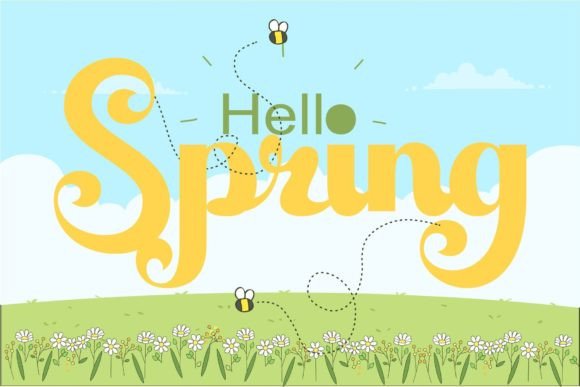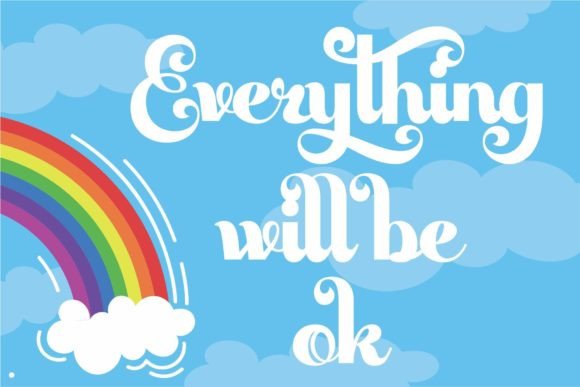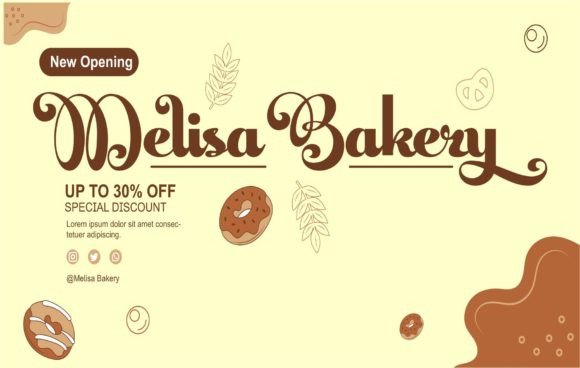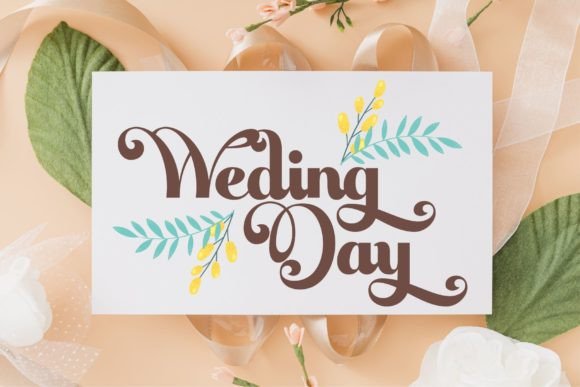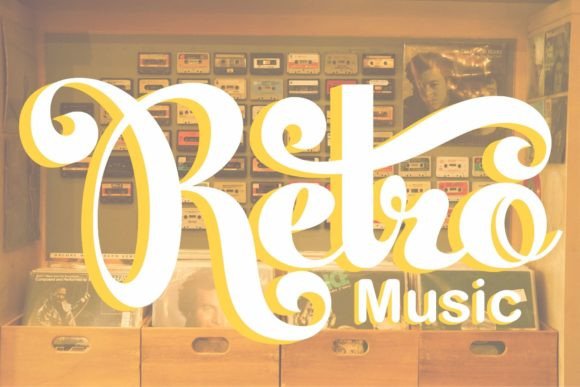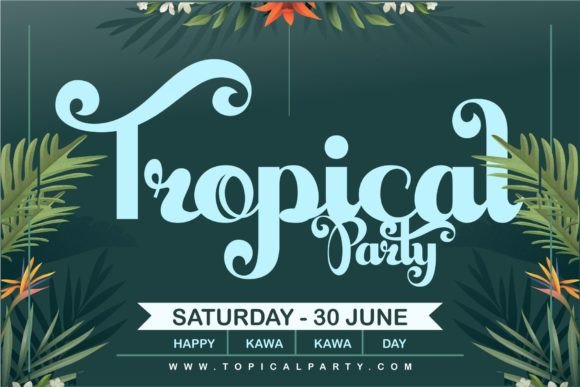
Unveiling the Beauty of Beauty Pearly Font: Elevate Your Designs with Elegance
In the realm of typography, fonts play a pivotal role in transforming ordinary designs into extraordinary works of art. Among the myriad of fonts available, one name that stands out for its elegance and versatility is Beauty Pearly. This exquisite font has been meticulously crafted to bring a touch of sophistication and beauty to various design projects, ranging from industrial purposes to wedding invitations, and everything in between.
The Essence of Beauty Pearly Font
Beauty Pearly is not just a font; it’s an experience. It embodies the beauty and elegance that can elevate any design project. Whether you’re working on a wedding invitation, a retro-themed poster, or simply looking for a signature font that exudes class, Beauty Pearly is the perfect choice. Its unique design elements make it versatile enough to be used across different platforms and design requirements.
One of the key features of Beauty Pearly is its incredible versatility. This font can seamlessly blend into various design contexts, including:
• Industrial Purposes: Add a touch of elegance to your industrial designs, making them stand out with a sophisticated look.
• Weddings and Wedding Invitations: Make your wedding invitations or related designs unforgettable with the font’s beautiful and delicate appearance.
• Natural and Retro Themes: Perfectly suited for designs that require a vintage or natural feel, Beauty Pearly adds a nostalgic charm.
• Signatures: Elevate your digital or handwritten signatures with a classy and distinctive look.
• Other Beauties: The font’s adaptability doesn’t stop there; it can be used in a wide array of design projects that call for beauty and elegance.
Why Choose Beauty Pearly?
Choosing Beauty Pearly for your design projects comes with numerous benefits:
• Elegance: It brings an unmatched level of elegance to your designs, making them more appealing to your audience.
• Versatility: Its adaptability across different design contexts makes it a valuable addition to your font collection.
• Uniqueness: Stand out from the crowd with a font that is both distinctive and captivating.
• User-Friendly: Designed to be easily readable and aesthetically pleasing, ensuring your message is conveyed beautifully.
Tips for Using Beauty Pearly Effectively
To maximize the impact of Beauty Pearly in your designs, consider the following tips:
• Pair it with Complementary Fonts: For optimal results, pair Beauty Pearly with fonts that complement its elegance without overpowering it.
• Adjust Size and Color Wisely: Play with different sizes and colors to ensure the font aligns with your design’s overall aesthetic and hierarchy.
• Experiment with Design Elements: Don’t hesitate to get creative with Beauty Pearly. Use it in conjunction with various design elements to create visually appealing compositions.
Beauty Pearly Font is more than just a typographical choice; it’s a statement of elegance and refinement. Whether you’re a designer looking to elevate your projects or a crafter seeking that perfect font for your creations, Beauty Pearly is sure to exceed your expectations. Its versatility, beauty, and ease of use make it an indispensable tool in your design arsenal. Discover the beauty of Beauty Pearly and let it transform your designs into stunning works of art.